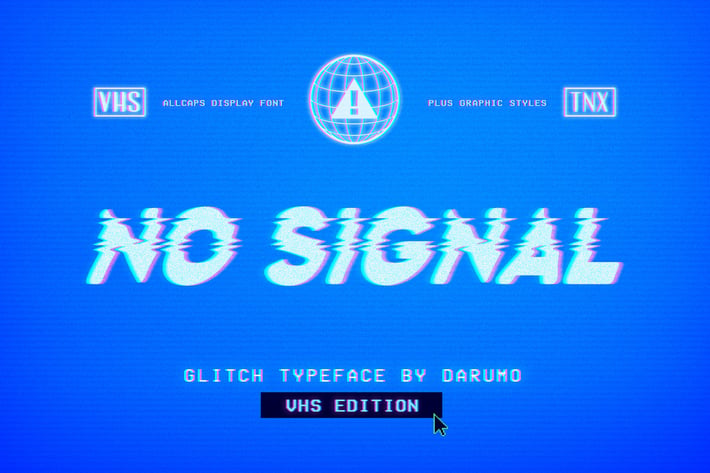
No Signal Font
Introducing No Signal, the display font with a glitch effect. This font refers to cultural products of the 80s such as movie posters and tv shows. Perfect for big headers and for text blocks also.